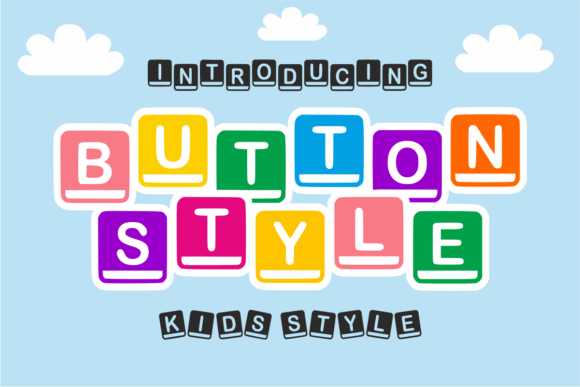
Get Ready to Press Play with Button Style Font
Do you remember the excitement of designing a logo or title for a project, only to feel like it’s missing that special something? The thrill of searching for the perfect font, trying out different styles and combinations, until finally, it clicks? That’s exactly what happens when you discover the Button Style Font.
This modern, decorative font is designed to be eye-catching and fun, with a unique button-like shape that’s sure to turn heads. With its uppercase letters and cute, unique characters, it’s perfect for a wide range of creative projects, from children’s craft designs to sublimated t-shirts and animations.
For designers, the Button Style Font is a valuable asset, offering endless possibilities for creativity and self-expression. Whether you’re working on a children’s book, a comic, or a fun project for a client, this font is sure to help you bring your vision to life.
Button Style Font Key Features
- Font Style: The Button Style Font is a sans-serif font with a bold and modern look, often used for headings and titles.
- Unique Characteristics: The font features a unique button-like design, with rounded edges and a subtle gradient effect that gives it a modern and sleek look.
Designer Review: Button Style Font
Overall, I was really excited to dive into the Button Style Font, hoping it would bring a fresh take on button design. Here are my thoughts:
- Playful yet functional aesthetic: The Button Style Font does a great job of balancing whimsy and usability, making it perfect for applications where you need a bit of personality.
- High contrast: The font’s bold lines and high contrast make it easy to read, even at smaller sizes.
- Customizable: The font offers a range of weights and styles, allowing designers to tailor it to their specific needs.
- Not ideal for body text: While the font is perfect for buttons, it may not be the best choice for large blocks of body text, as it can be a bit tiring to read.
- May not be accessible: The font’s high contrast and bold lines may not be suitable for users with certain visual impairments.
In conclusion, the Button Style Font is a great choice for applications where you need a fun, functional button design. While it may not be the best fit for every project, it’s definitely worth considering for the right use case.
Tips for Getting the Most Out of Button Style Font
Use a bold font weight to make the text stand out. Experiment with different font sizes to create a hierarchy of text. Use a contrasting color to make the text readable.
Button Style Font is commonly used for creating call-to-action buttons, navigation menus, and other interactive elements. It’s also used for creating eye-catching headlines and titles.